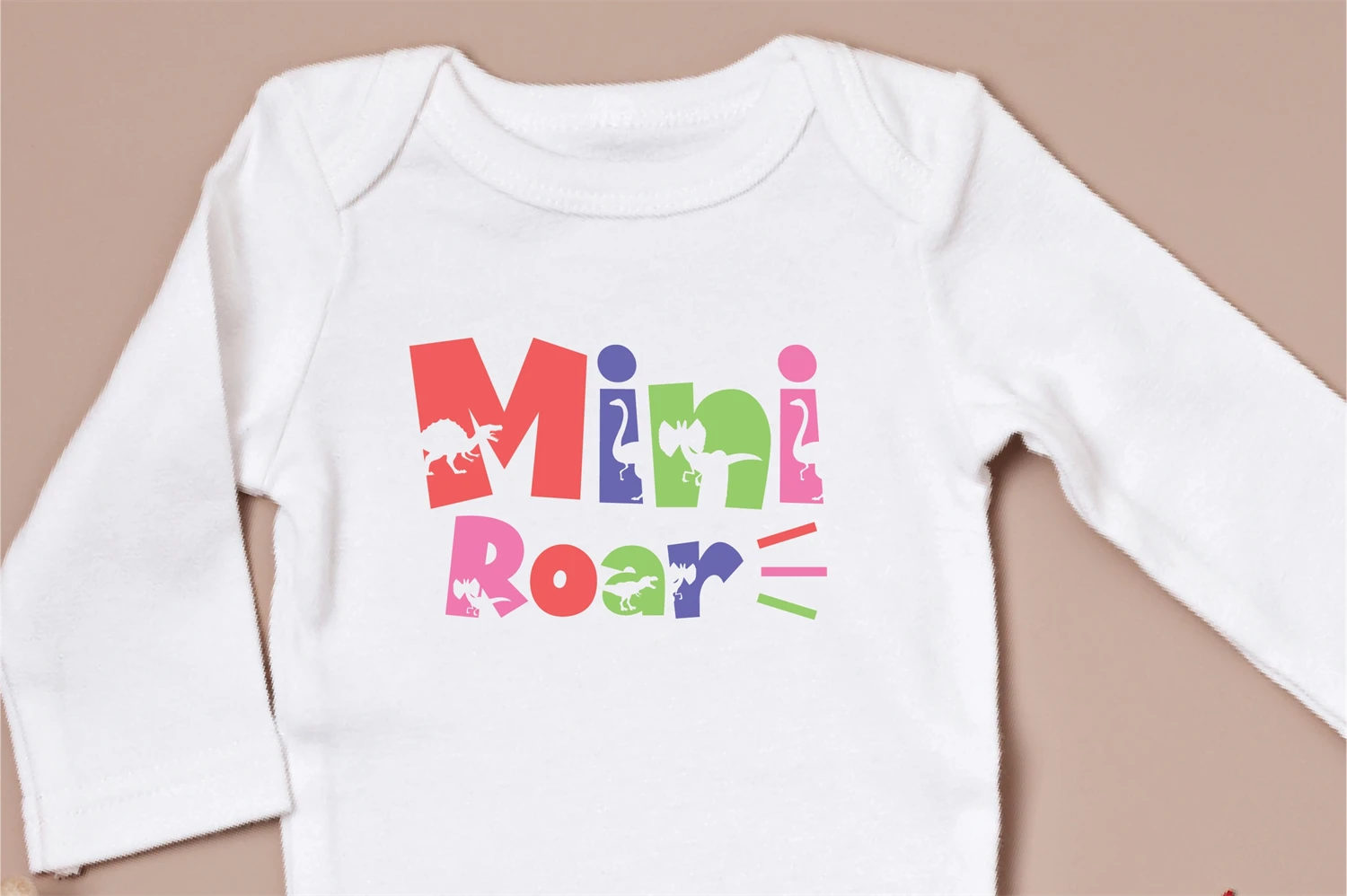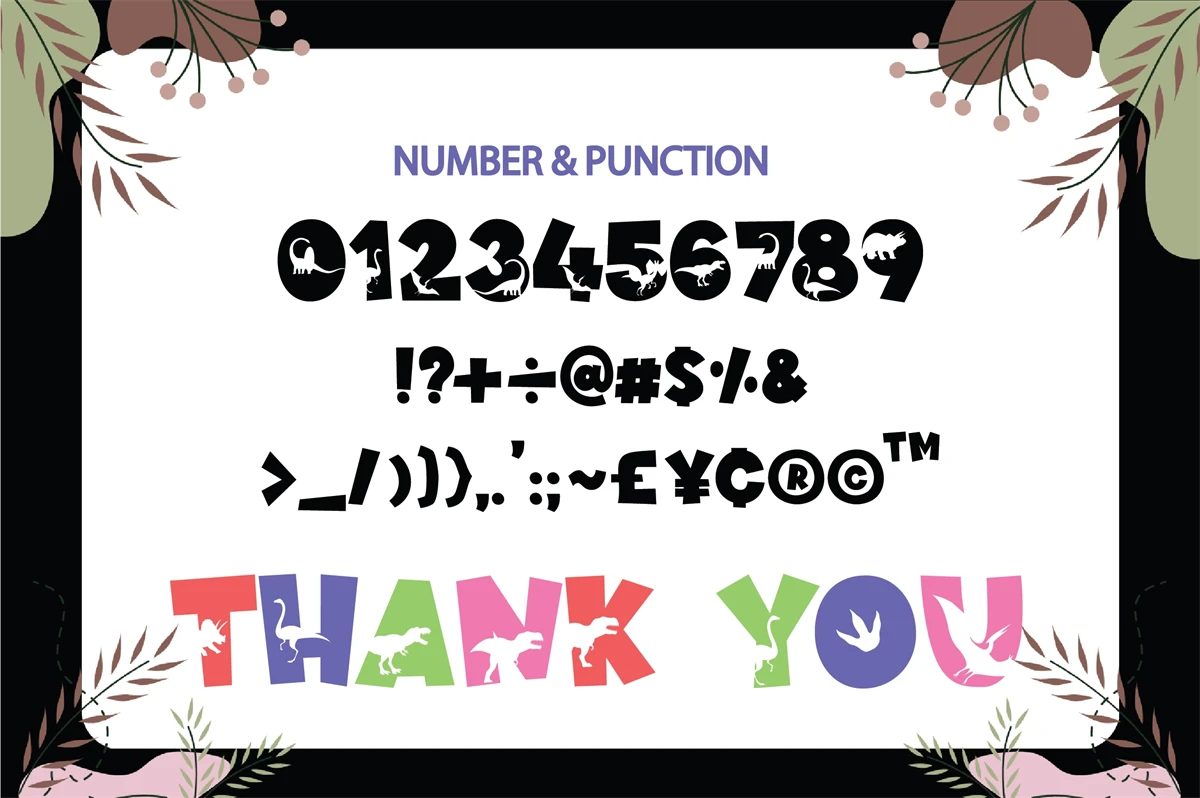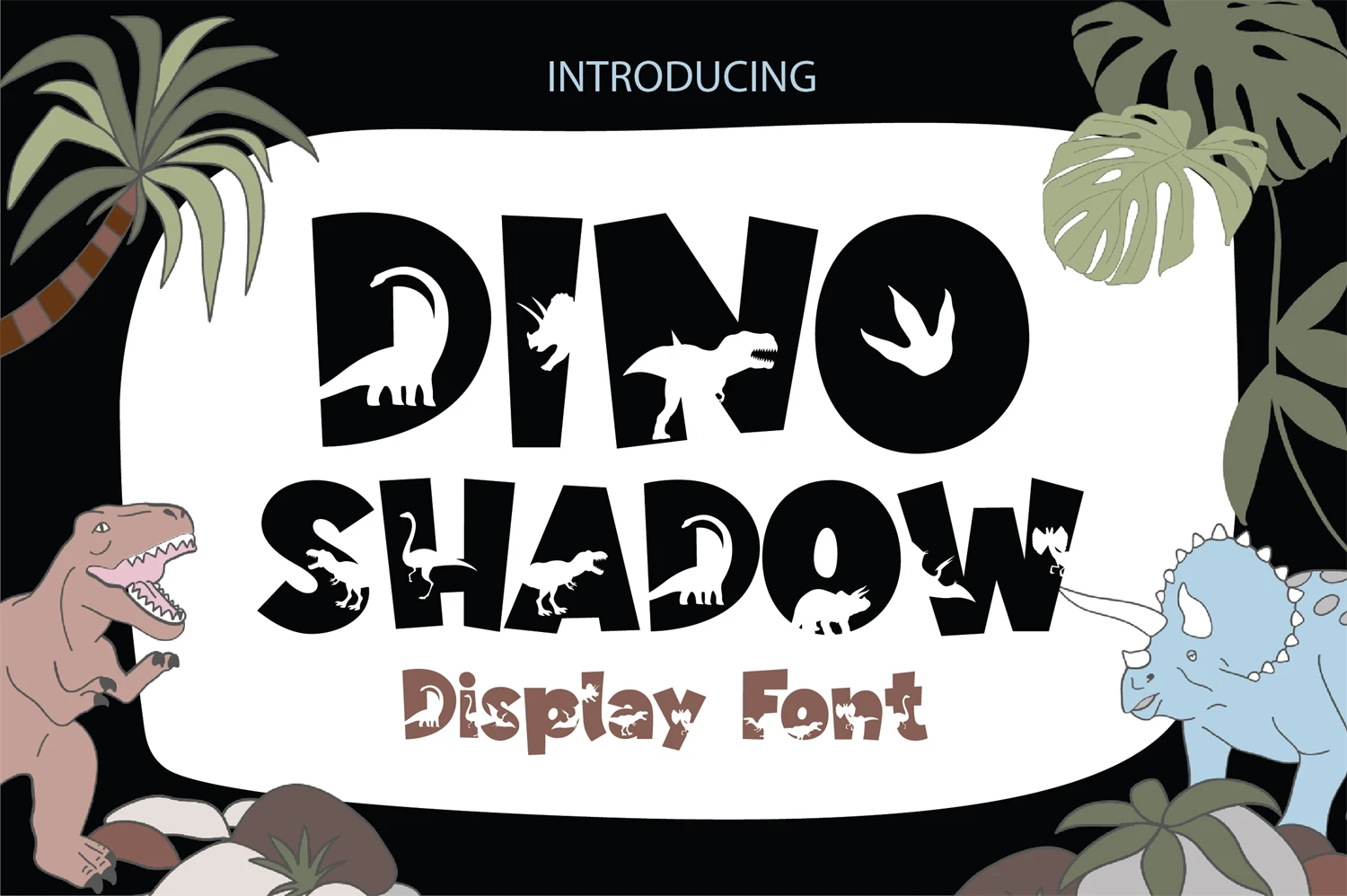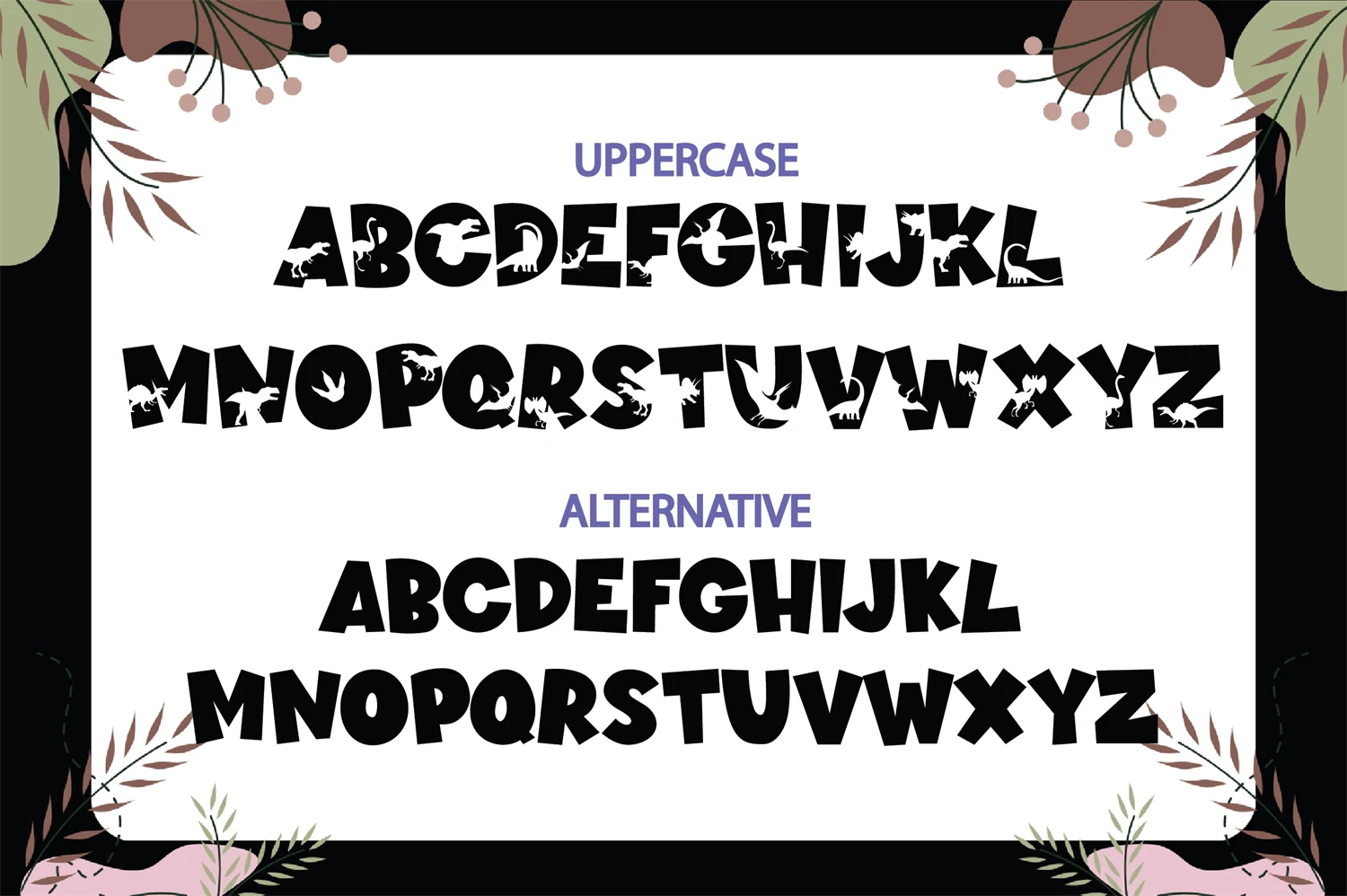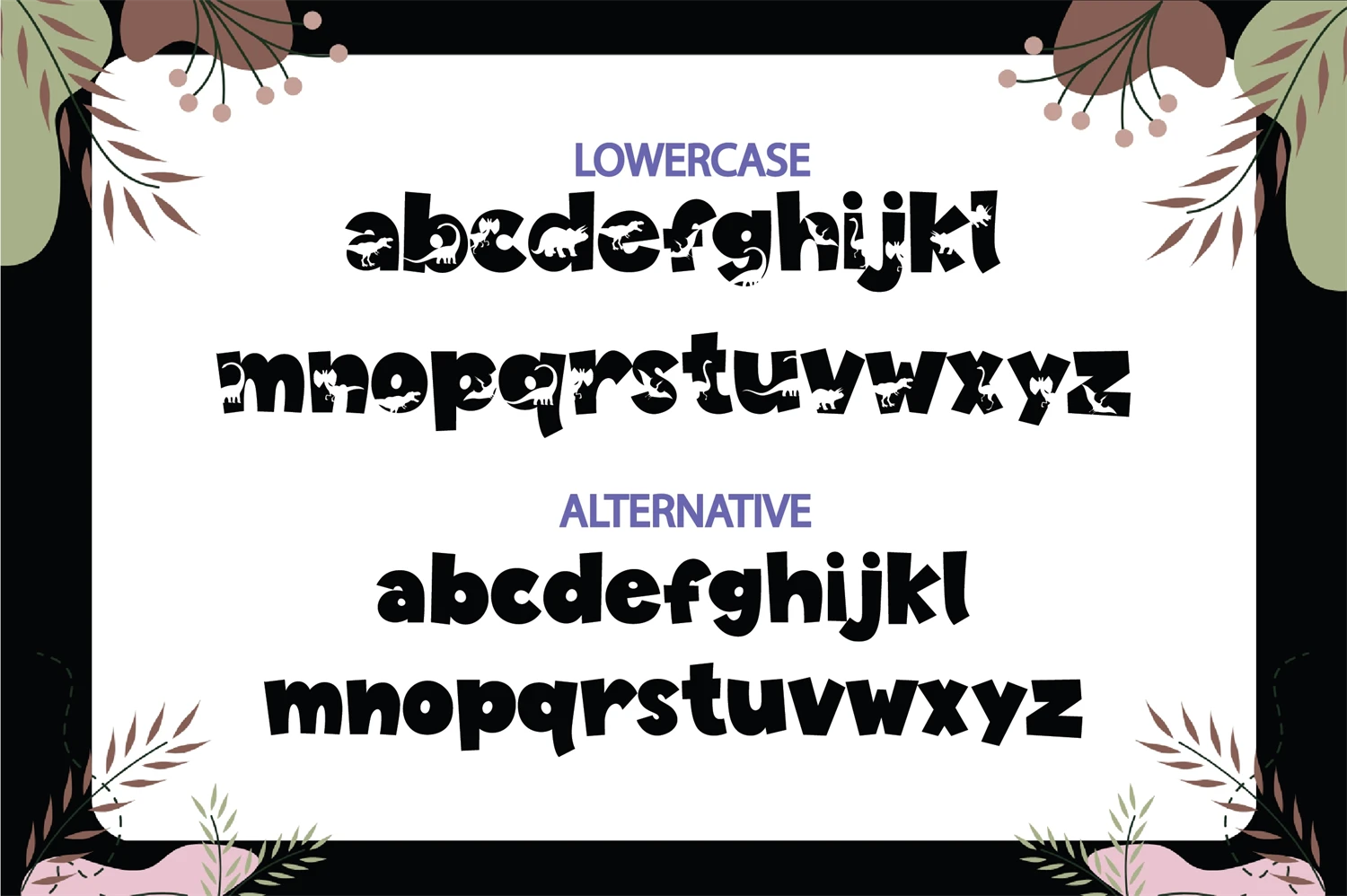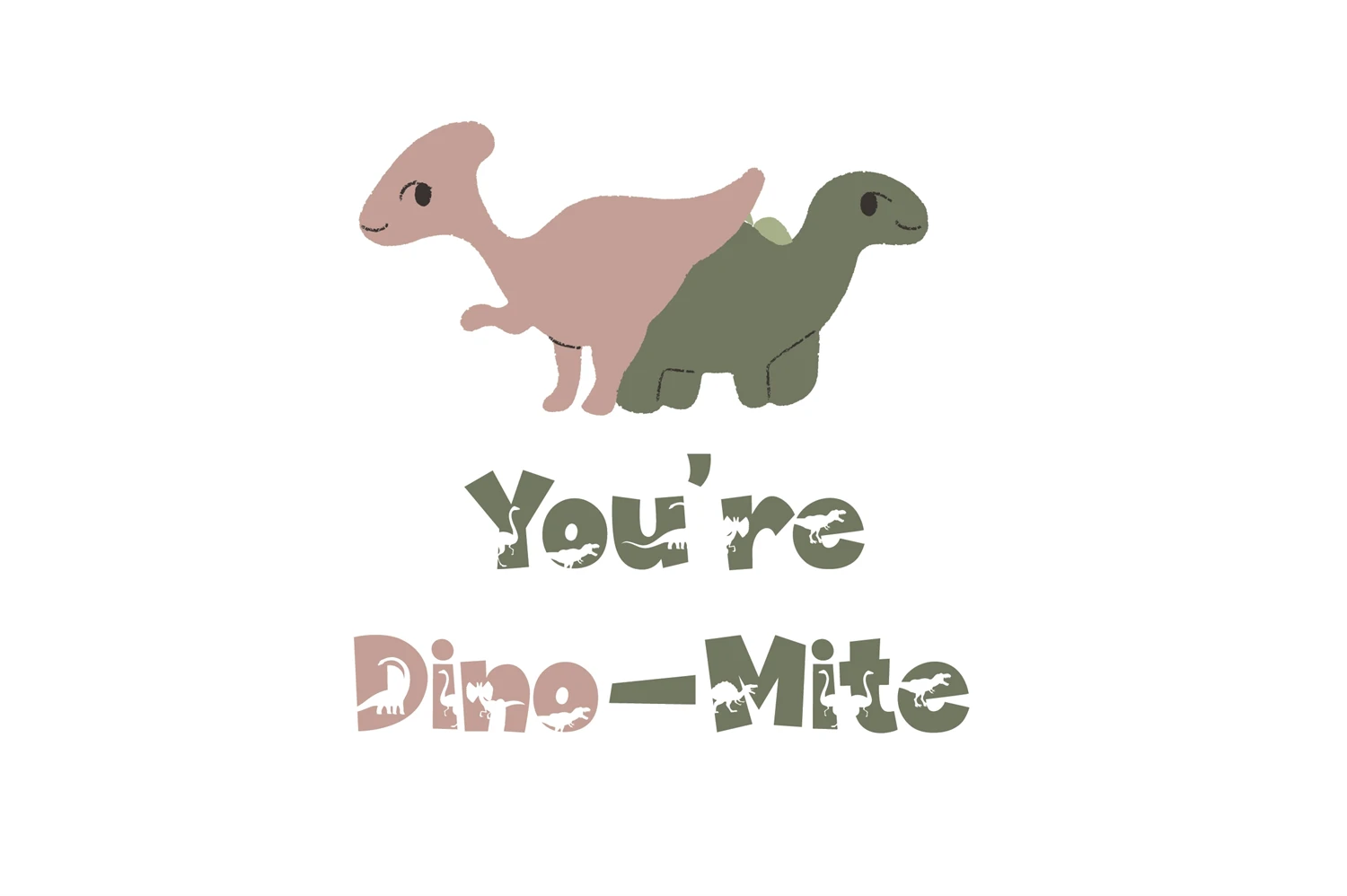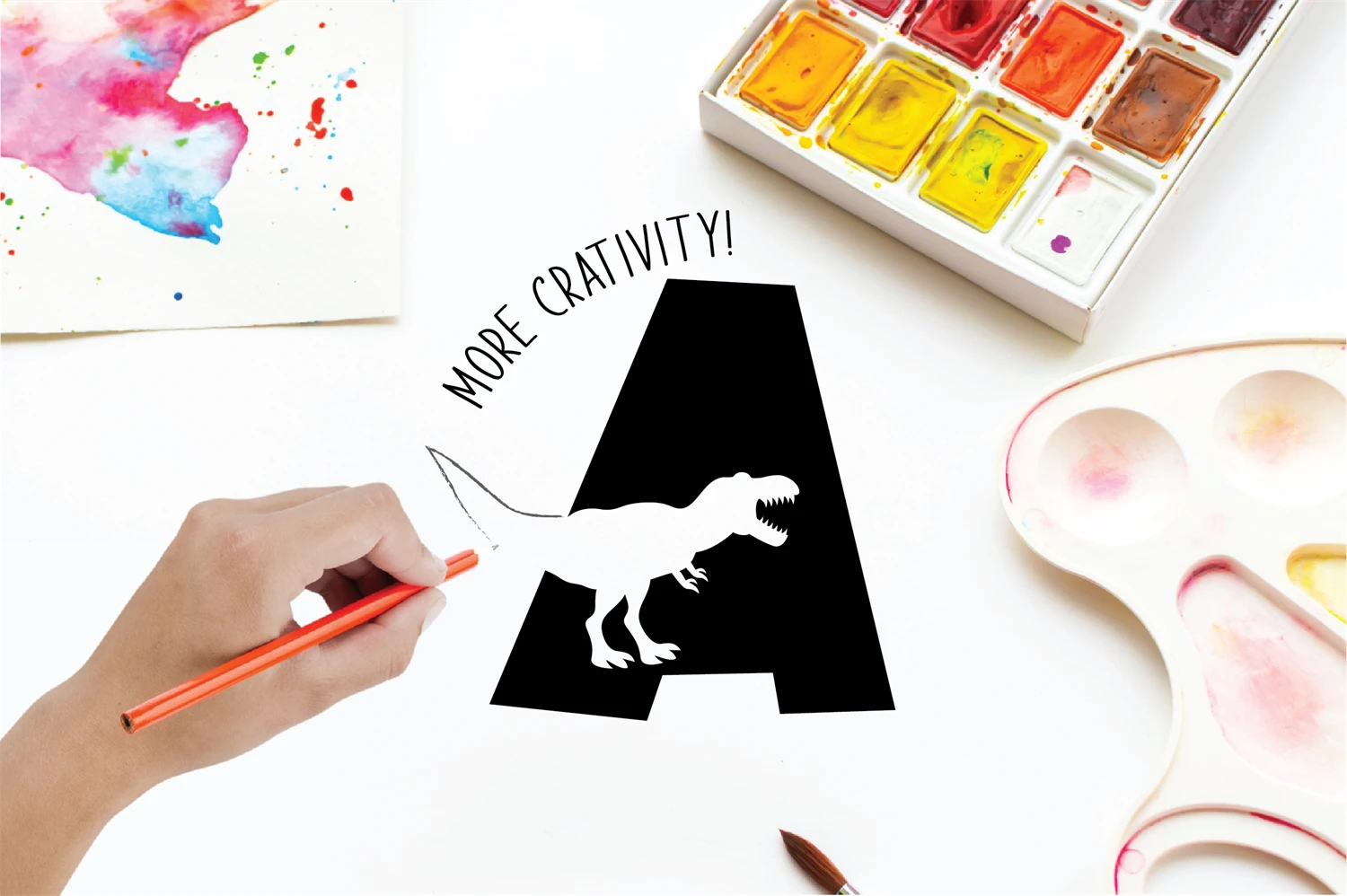
Dino Shadow is a playful and whimsical decorative font that is perfect for designs aimed at children or the young at heart. Its cheerful and colorful appearance will bring a sense of fun and joy to any project, making it ideal for book covers, posters, invitations, and more.